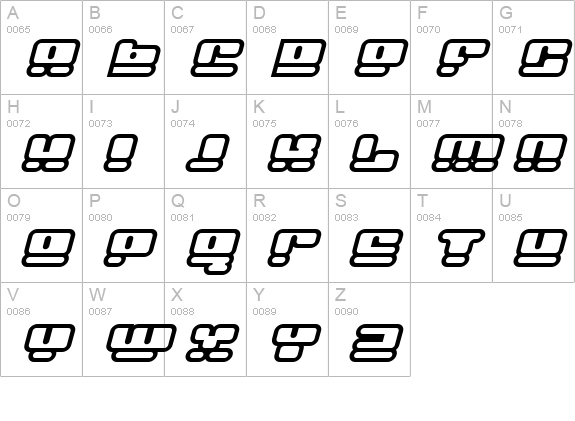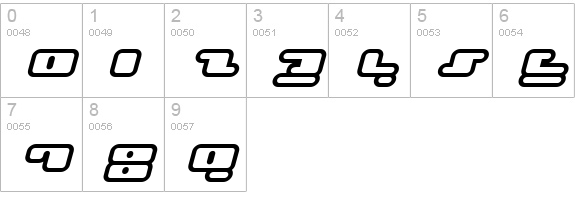
Face plant hollow 2 Italic Font Details
Face plant hollow 2 Italic is a distinctive, italic variant in the Face typeface family \xE2\x80\x94 well suited to design and typography projects.
Introducing Face Plant Hollow 2 Italic font, a stunning typeface that exudes elegance and sophistication. With its unique and stylish design, this font is perfect for adding a touch of class to your projects. The Face Plant Hollow 2 Italic font features beautifully curved letterforms with a slight slant, giving it a dynamic and modern look. Its bold and confident strokes make it highly readable, ensuring that your message is conveyed with utmost clarity. This font is ideal for a wide range of design projects, including logos, branding, headlines, posters, invitations, and much more. Its versatility allows it to adapt to any creative endeavor, making it a must-have in your font collection. One of the best things about the Face Plant Hollow 2 Italic font is that it is free to download at FontsMarket.com. Yes, you read that right - this incredible font is available for you to use without any cost. So why wait? Go ahead and grab this font now to elevate your designs to new heights. With its sleek and contemporary style, Face Plant Hollow 2 Italic font is sure to make a lasting impression on your audience. Its attention to detail and fine craftsmanship make it a true work of art in the world of typography. So, if you're looking for a font that combines elegance, versatility, and affordability, look no further than Face Plant Hollow 2 Italic font. Download it for free at FontsMarket.com and discover the endless creative possibilities it offers.